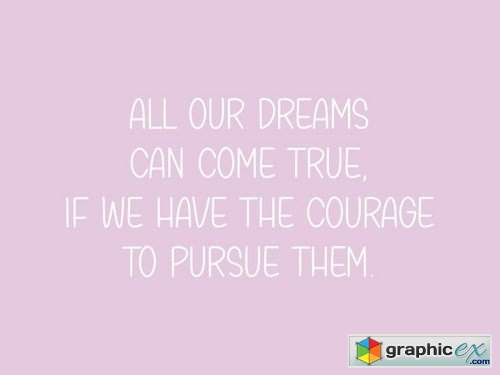
Goldstick YH - Sans Serif Font
GOLDSTICK is perfect for product packaging, branding project, magazine, social media, wedding, or just used to express words above the background.